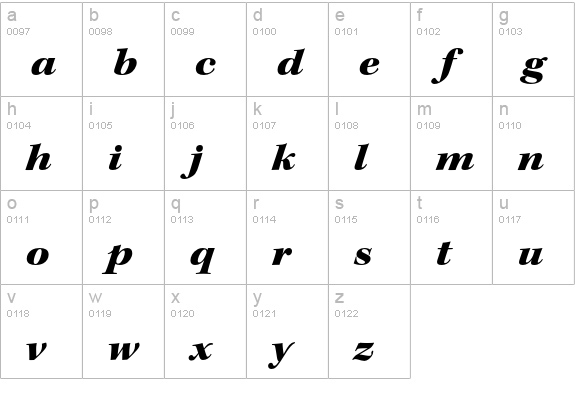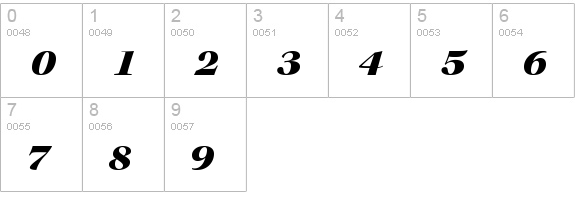
Kepler Std Black Extended Italic Subhead Font Details
Kepler Std Black Extended Italic Subhead is a maximum-weight, dramatic, extended-width, italic variant in the Kepler typeface family \xE2\x80\x94 well suited to maximum-impact headlines, posters, and packaging.
The Kepler Std Black Extended Italic Subhead font is a stunning and bold typeface that exudes elegance and sophistication. Its extended and italicized design adds a touch of drama and flair to any project. This versatile font is perfect for creating captivating subheadings and headers that command attention. Its thick and powerful strokes make a strong visual impact and ensure that your message stands out from the crowd. Whether you're designing a magazine spread, a book cover, or a promotional poster, this font will add a touch of professionalism and style. One of the best things about the Kepler Std Black Extended Italic Subhead font is that it is free to download. You can easily access and use this font for your personal and commercial projects without any restrictions. Simply head over to FontsMarket.com and download it instantly. With its striking appearance and its freely available status, the Kepler Std Black Extended Italic Subhead font is a must-have for designers, creatives, and anyone looking to make a bold statement with their typography. Don't miss out on the opportunity to elevate your design projects with this exceptional font.